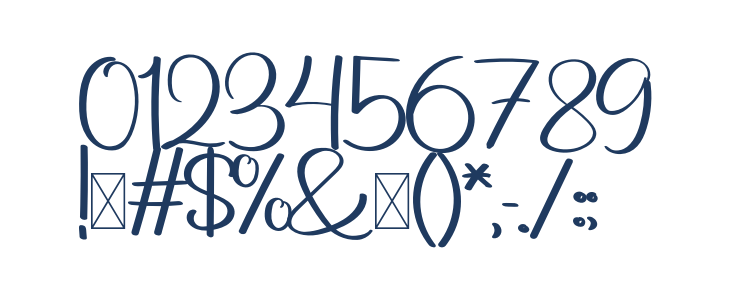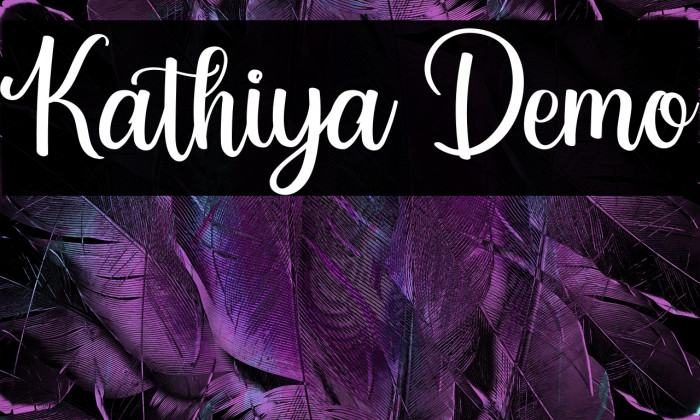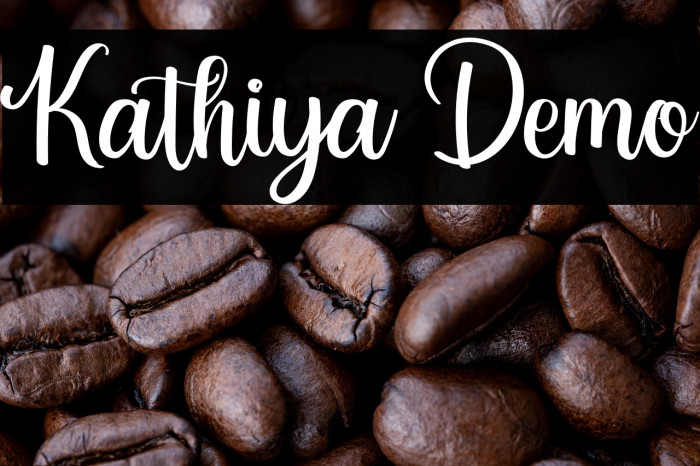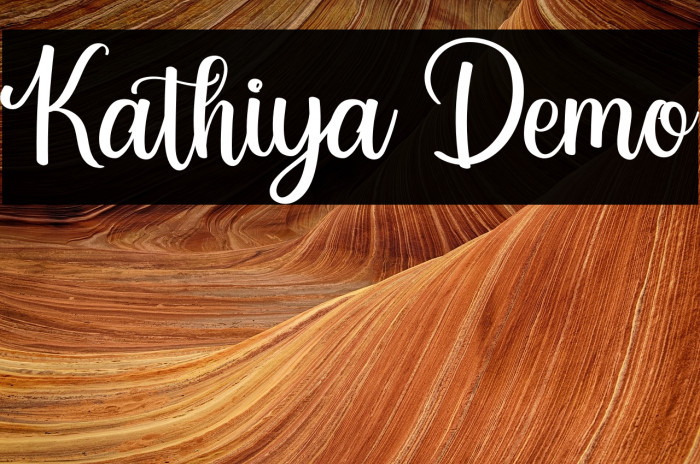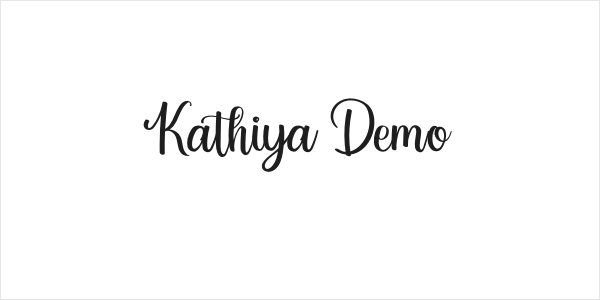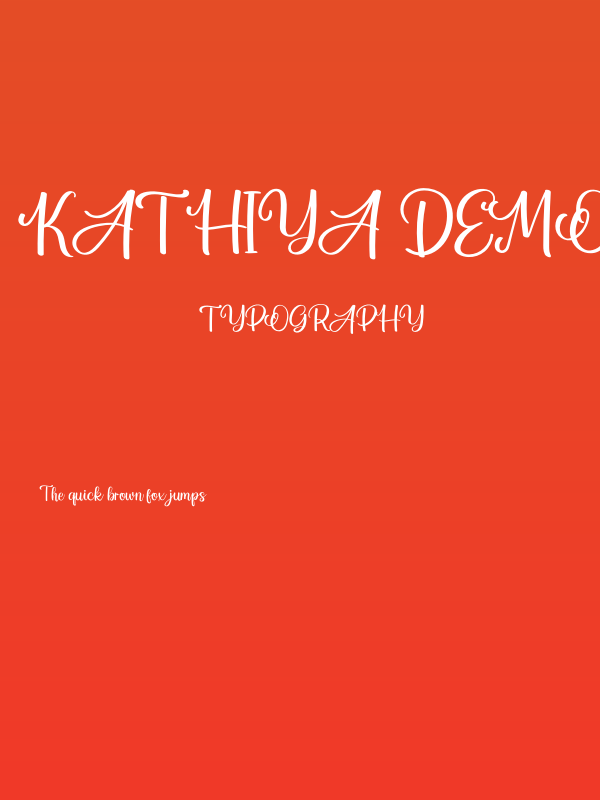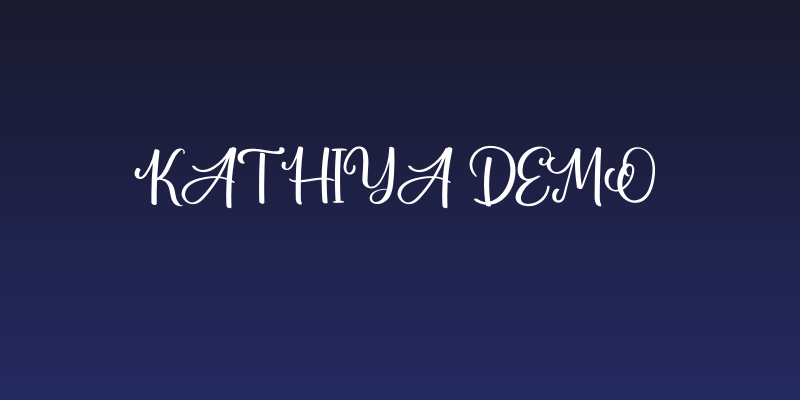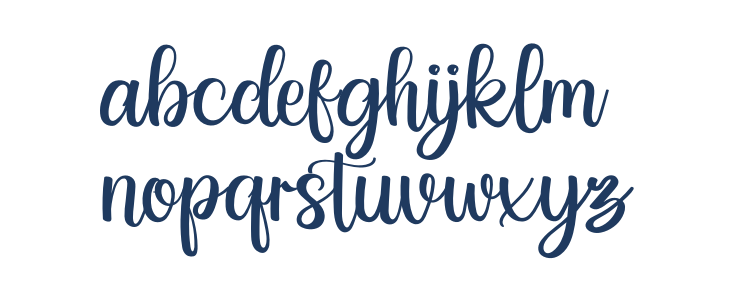
Kathiya Demo Font
Kathiya Demo Description
This font features a playful and elegant script style, characterized by its flowing, cursive letters. The uppercase letters are slightly more ornate, with loops and swirls that add a decorative touch. The lowercase letters maintain a consistent flow, with rounded edges and smooth connections between characters. The numerals are bold and clear, maintaining the script style with slight embellishments. Special characters are creatively integrated, matching the overall aesthetic with a touch of whimsy. This font is ideal for projects that require a personal, handwritten feel, while still maintaining readability and style.